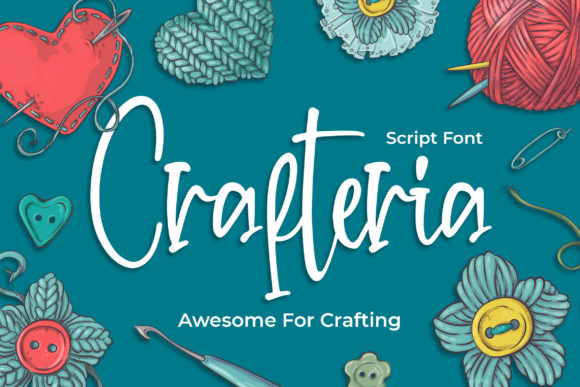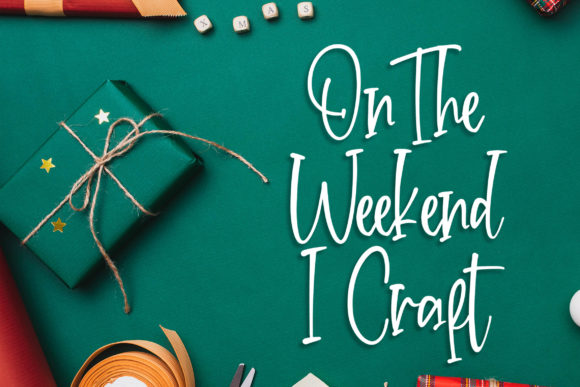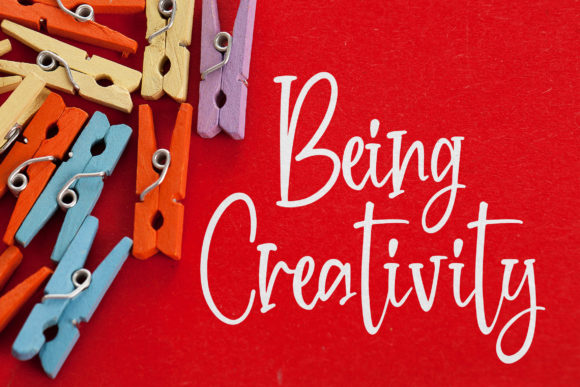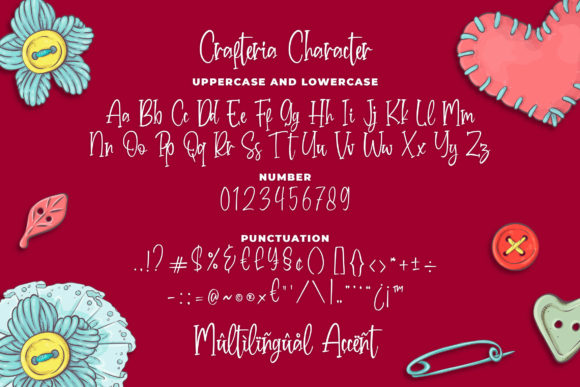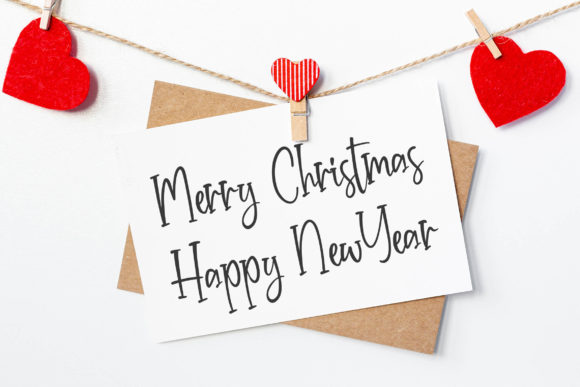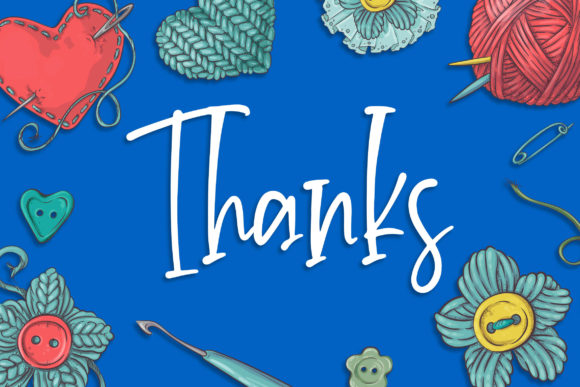
Crafteria Font
About Crafteria Font
Crafteria is cute and friendly, but also fancy. This versatile handwritten font has a wide range of applications ranging from branding to greeting cards and is guaranteed to add a charming touch to your next design.